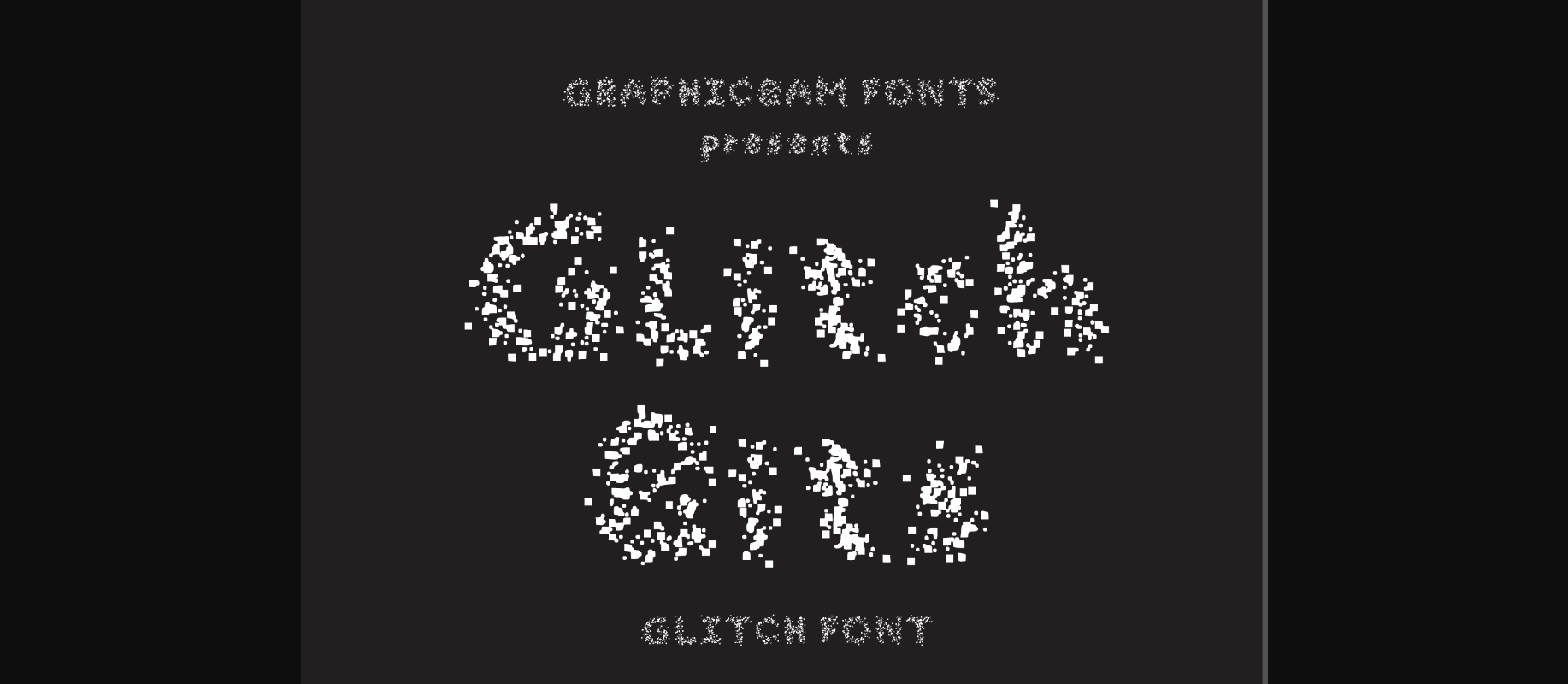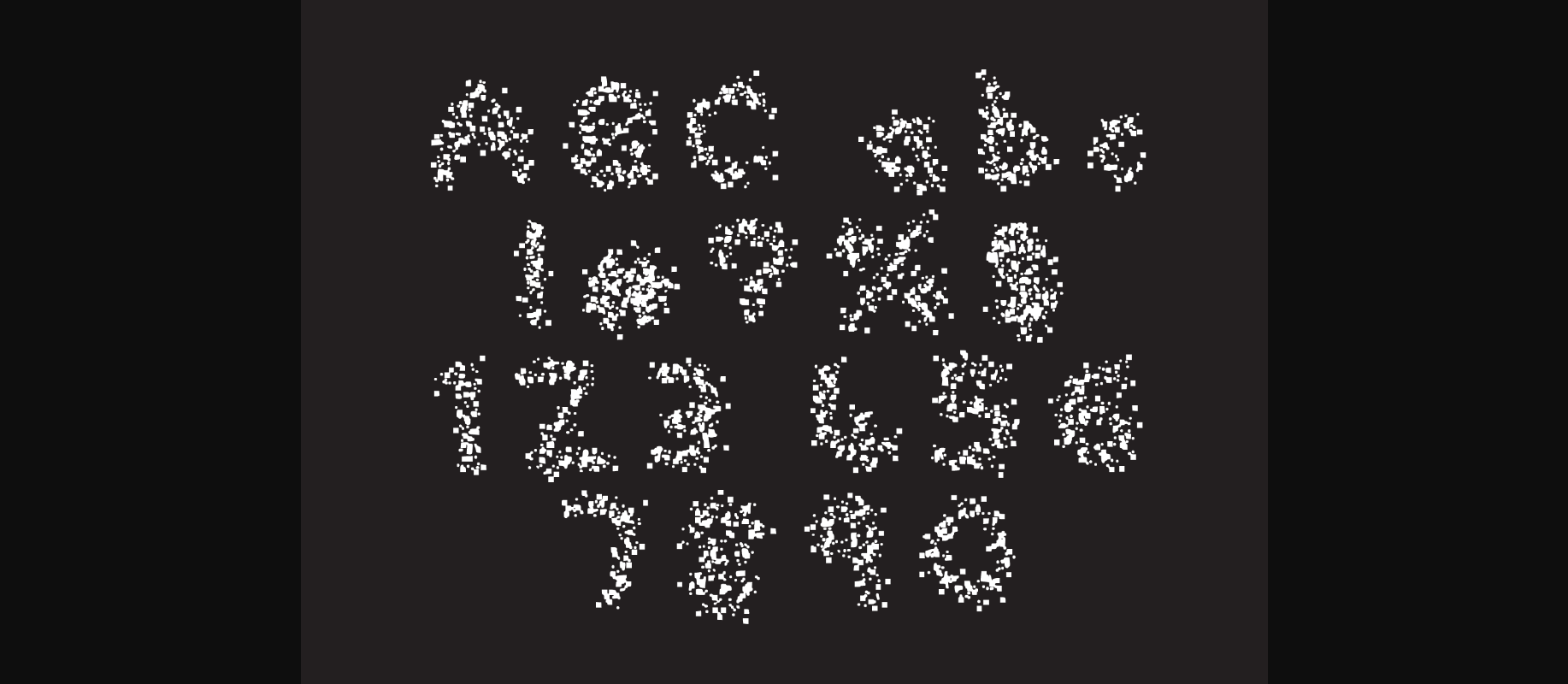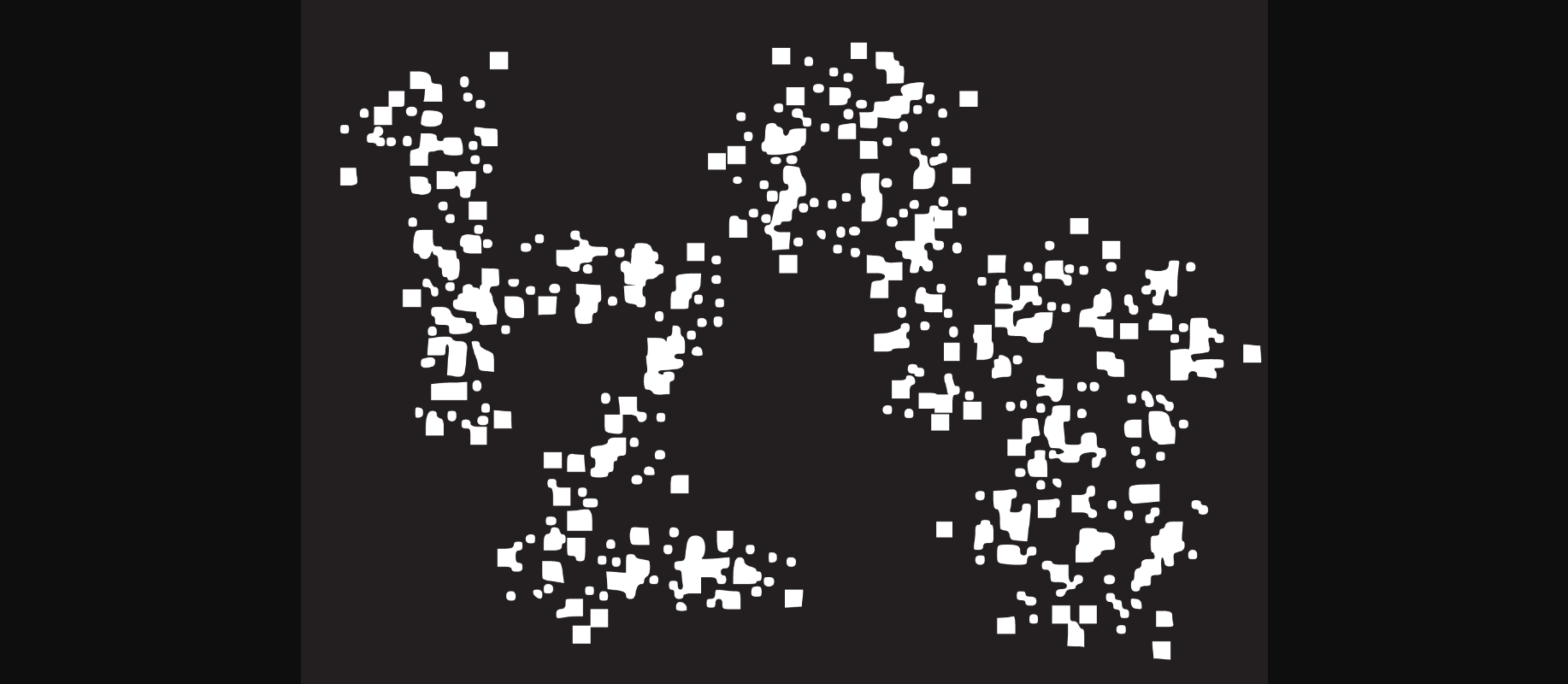
Glitch Bits Font
About Glitch Bits Font
Glitch Bits is an incredibly cool and genuine decorative font. Featuring a strong visual effect, this font will instantly make your creation more appealing than any others.